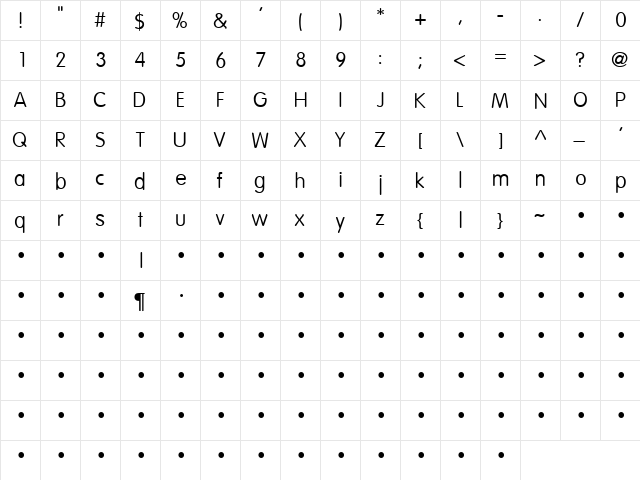
Lemons 1 Regular
Design Context for Lemons 1 Typeface
Lemons 1 offers clean, dependable letterforms without strong stylistic allegiance, making it a practical choice for designers who need flexibility.